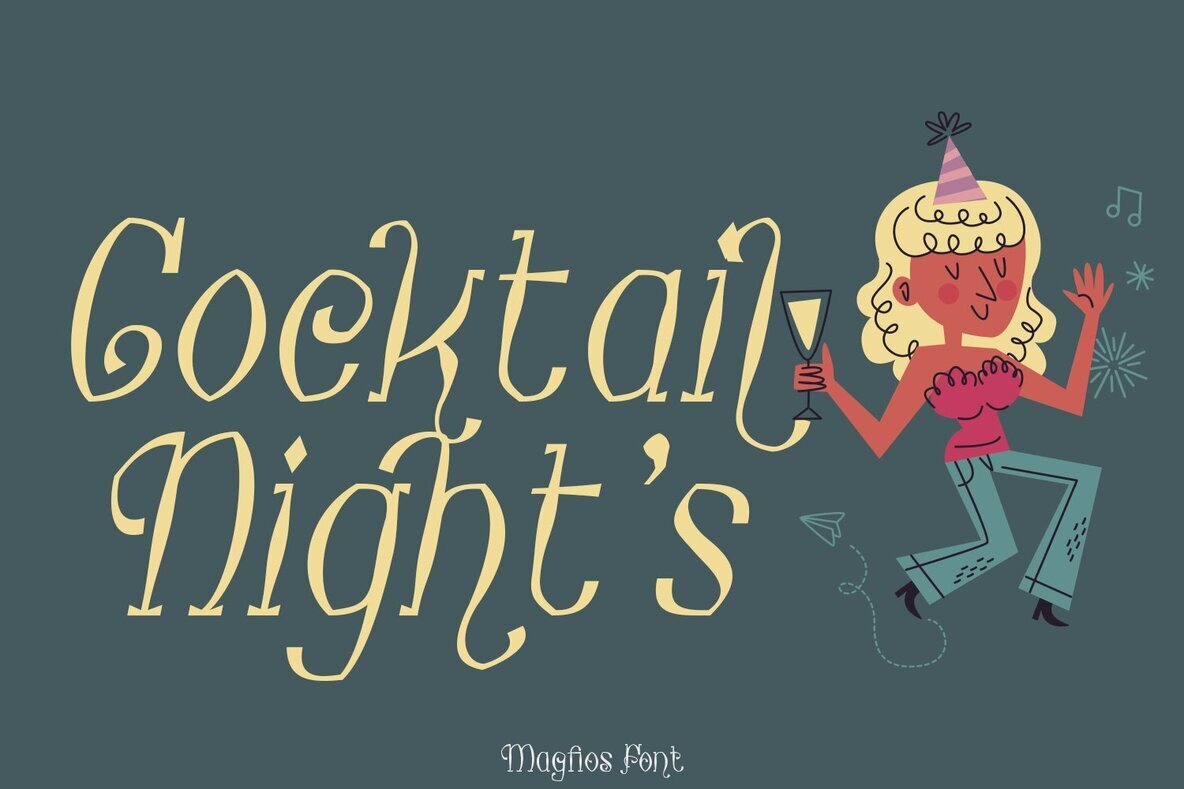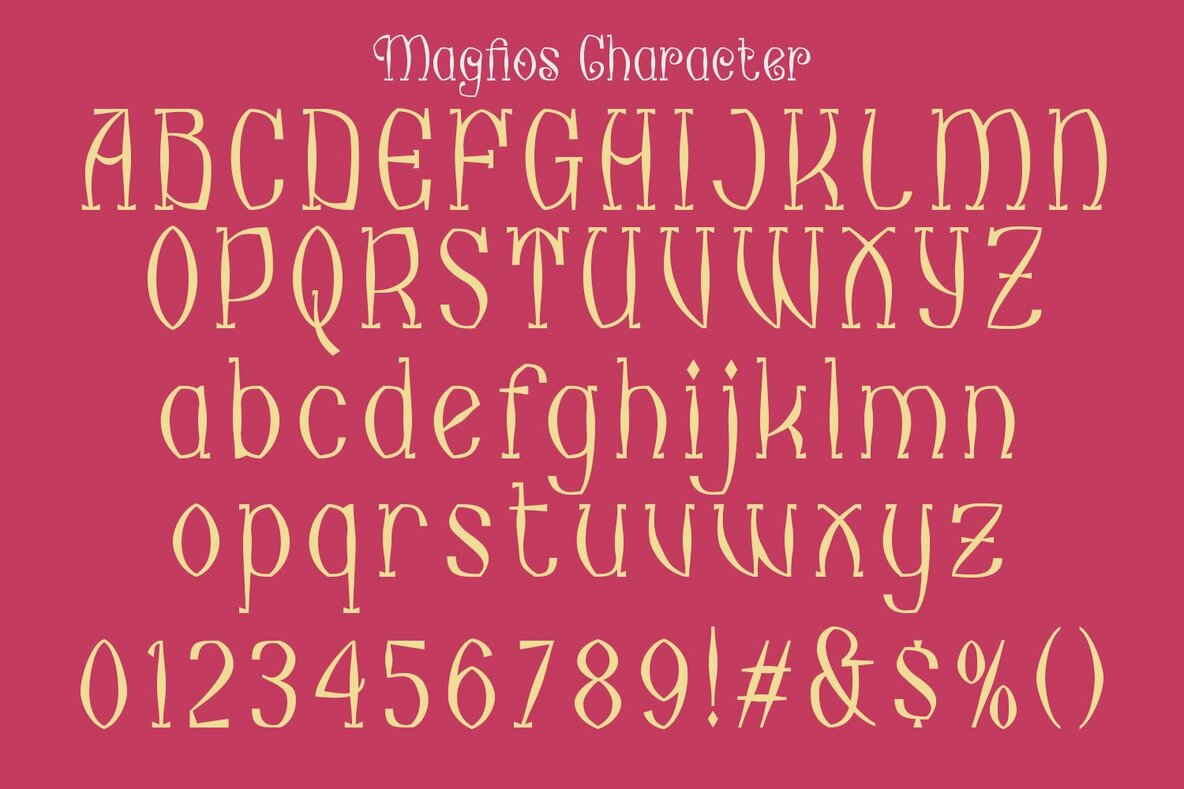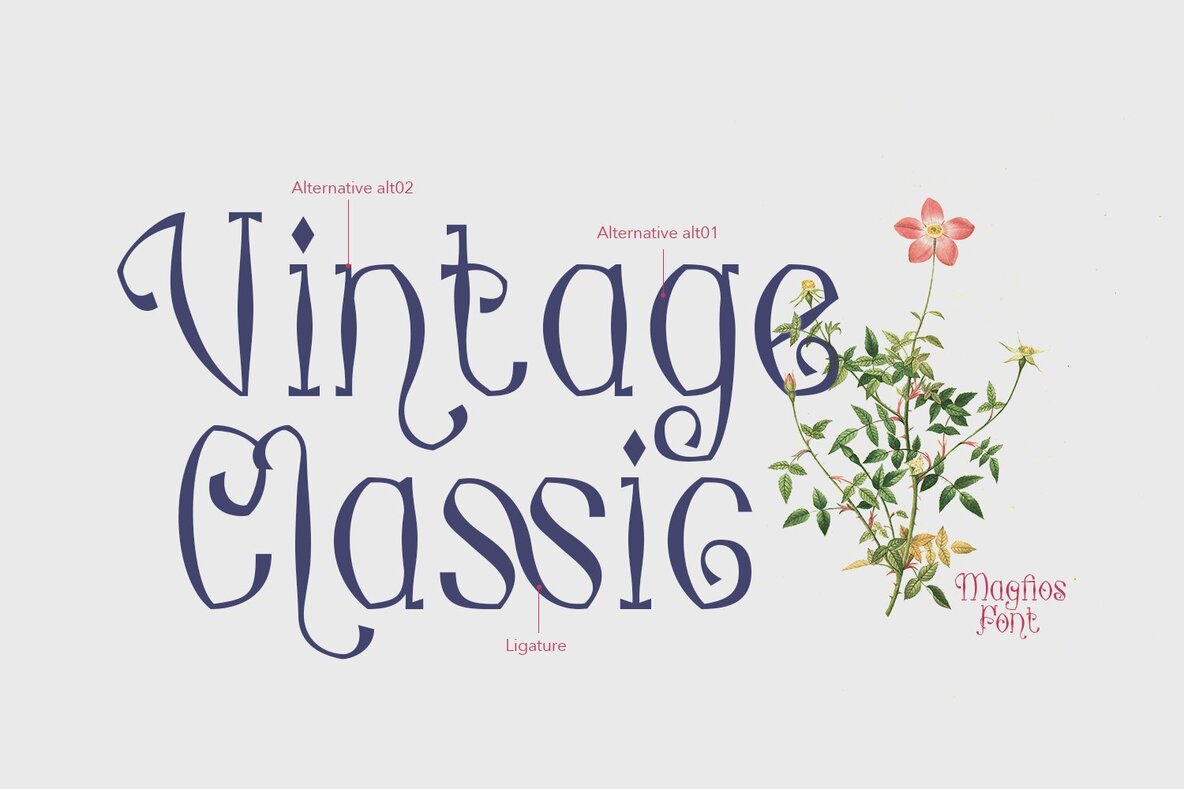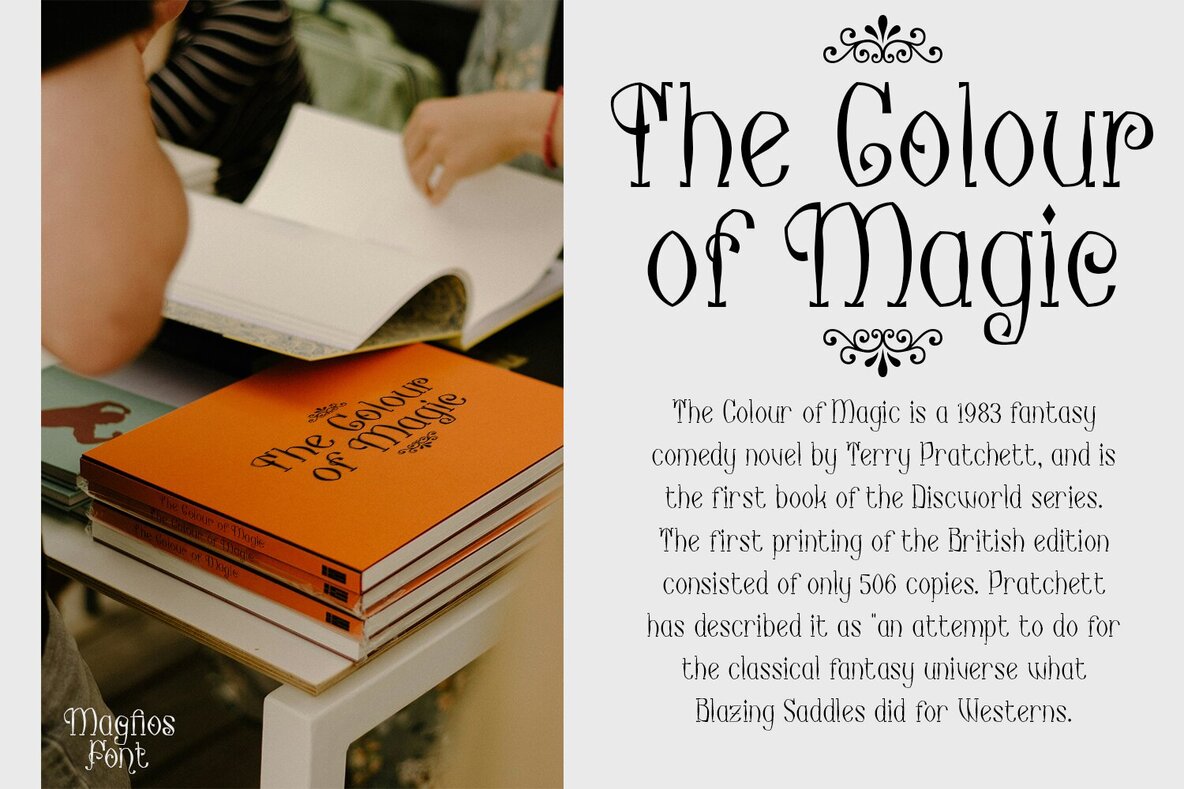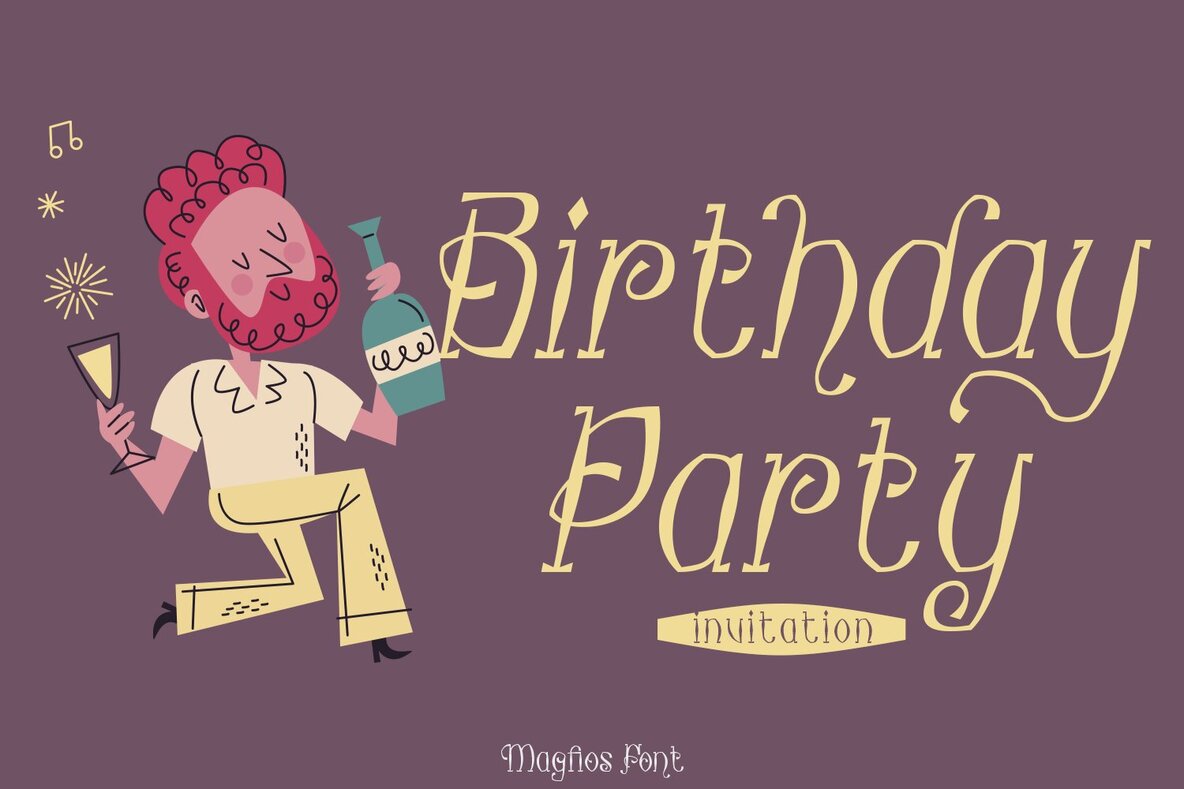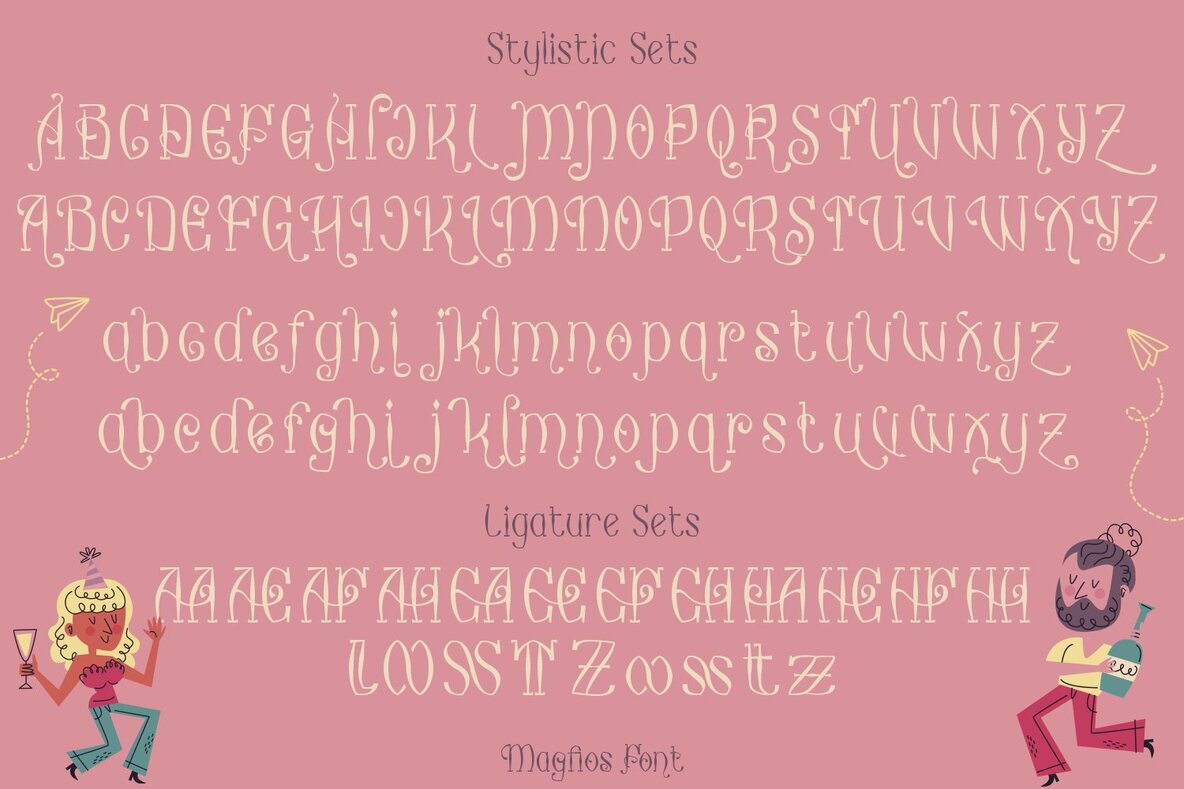
Magfios Font
Magfios offers a delightful blend of whimsy and elegance, crafting a sense of nostalgia with its distinct serif style. This font empowers your designs with a unique flair, seamlessly fitting into anything from wedding invites to children's books. Encapsulating both charm and sophistication, it adds a touch of grace to any endeavor.Magfios: Playful Meets Timeless Serif